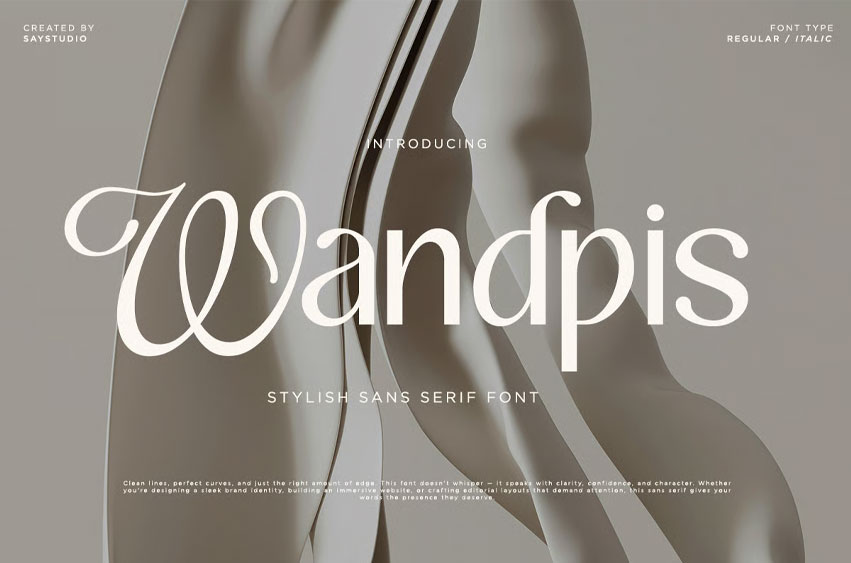
Wandpis Font
Wandpis Font is a stylish sans serif font that we created specially for elegant branding needs, with a unique shape that will be ready to add value to your brand.
It is so nice to leverage designers or product owners who need solutions to make their design look more luxurious and modern. Perfect for logos, branding, social media posts, web designs, and editorial layouts. Fully compatible with Adobe Illustrator, Photoshop, and Canva.
• Stylistic Alternates